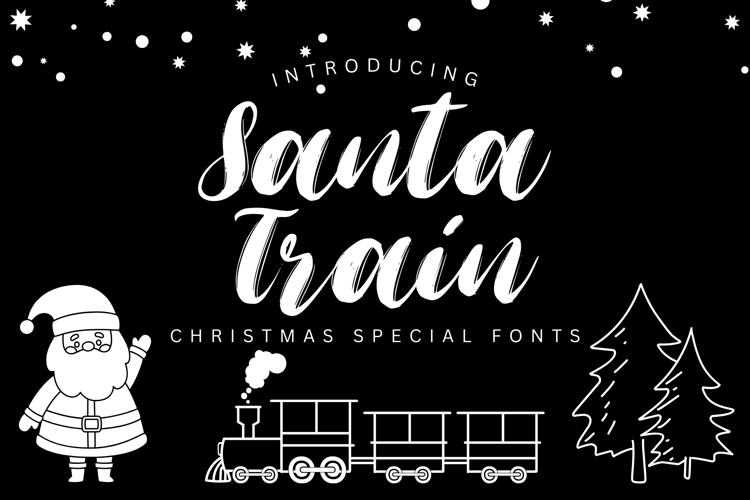
Santa Train Font
Santa Train is a cute, unique, and friendly script font. It has a modern yet whimsical style and will undoubtedly immerse your designs into a magical world. This font is perfect for various Christmas and New Year design purposes.